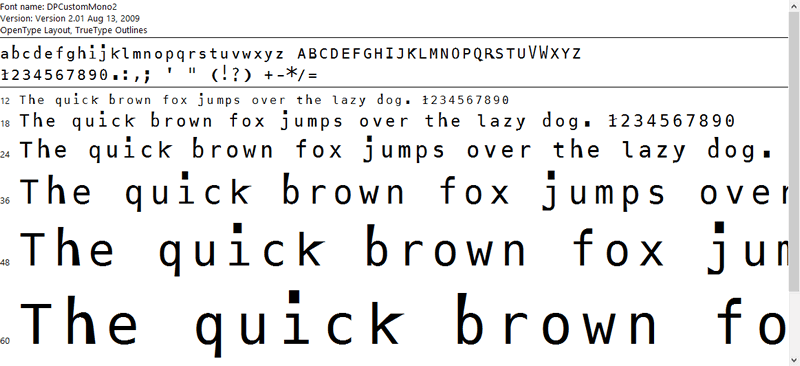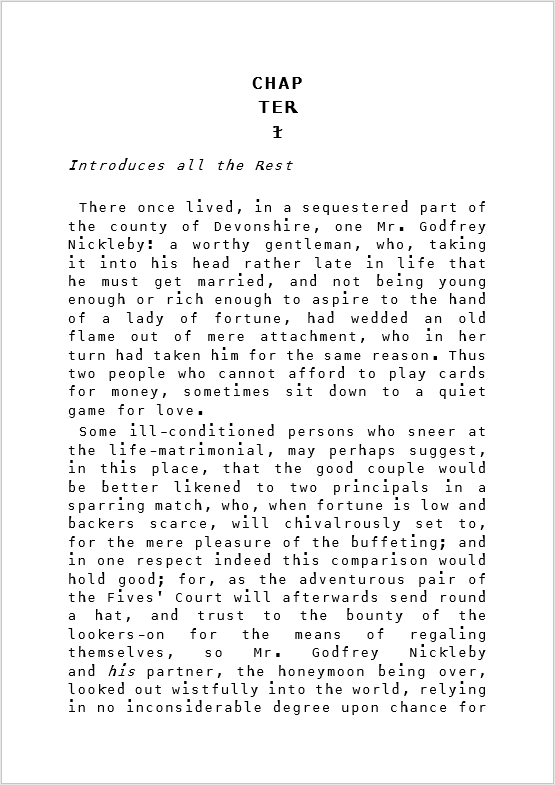
No matter how careful you are, mistakes can happen. A slip of the finger can totally alter a word without giving spellcheck a reason to step in. Words like ‘ward’ and ‘wars’ are a letter apart, and both make sense in different contexts.
Proofreading is a valuable technique to stop these errors slipping through the cracks, but you may not be able to identify errors when reading your own work.
Enter DPCustomMono, a font intended solely for proofreading. Although originally designed for proofing OCR text, there is no reason you could not use it for text written on a computer as we intend to.
DPCustomMono, as you can see, is far from a beautiful font, though it is functional. The core idea behind its design is that every letter gets its own distinct identity. Some fonts have extremely similar looking glyphs for a capital ‘I’ and a lower-case ‘l’.
The observant among you may notice a slight difference in thickness between the letters used in our example above, which is Calibri at 72pt. The capital I is thicker, but at smaller sizes spotting these differences is harder.
By giving each letter a totally unique appearance, DPCustomMono is meant to draw attention to their presence. In our ‘ward/wars’ example, you might catch it through regular reading, but you’re far more likely if the two letters look so radically different it’s hard to mistake them.
DPCustomMono is distributed for free, which is excellent considering how useful it can be. Whether you’re working on a manuscript, a blog post, or an academic paper, it can be worthwhile to take the time to proofread.
By now you may be wondering if DPCustomMono works for its intended purpose. Certainly the logic behind its design is sound, but whether it works properly or not is a different matter.
As the above screenshot ably demonstrates, DPCustomMono is large compared to other fonts, with large spaces between letters. The text used, the opening to Dickens’ “Nicholas Nickleby,” quickly runs into its second page. The font was set to display at 13.5pt, just as with Times New Roman above.
Even the default OCR font in Windows, OCR A Extended, displays at a significantly smaller size than DPCustomMono. Absolute certainty that the font works cannot be guaranteed, but at a basic level, increasing the size of text may flag errors, while distinct character designs may further assist.
The group responsible for the font’s development, “Distributed Proofreaders,” saw fit to apply their name to it, hence the “DP” prefix. That professional proofreaders saw the gap for a suitable font and produced it is an encouraging sign of its potential.
It is immensely satisfying to be able to identify any mistakes in your writing and correct them before others do so, and DPMonoCustom is well worth trying for the potential satisfaction it can give. Furthermore, it is OS independent, so does not force you to use only one operating system or computer.